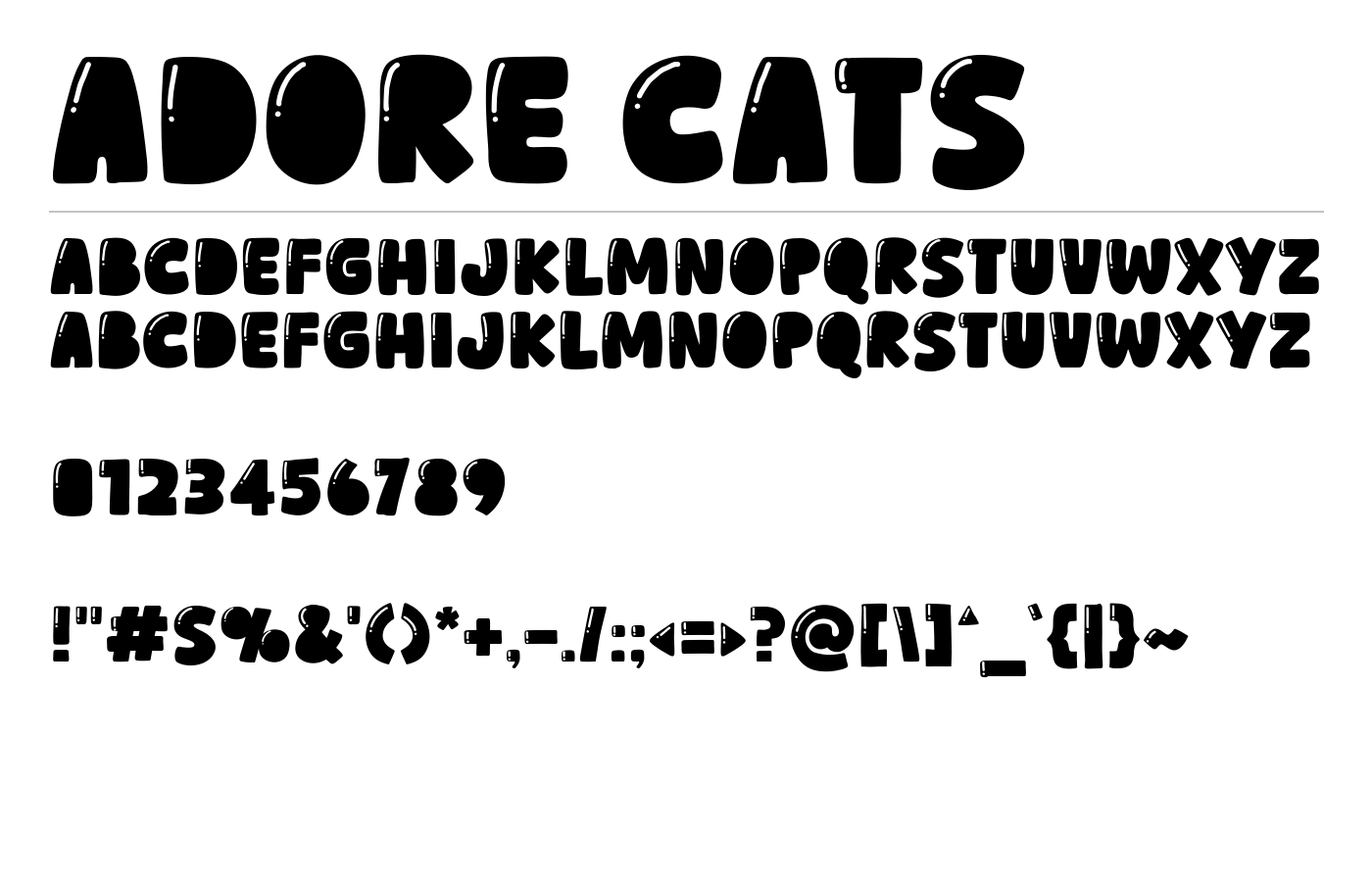
Adore Cats is a bold, playful sans serif font with rounded, chunky letterforms that give it a fun and friendly personality. Its high x-height and generous spacing make it highly legible and eye-catching, perfect for informal and creative designs. This font works best for children's materials, casual branding, posters, and any project needing a whimsical, approachable touch.
Adore Cats Font
About Adore Cats Font
| Font family | Adore Cats Font |